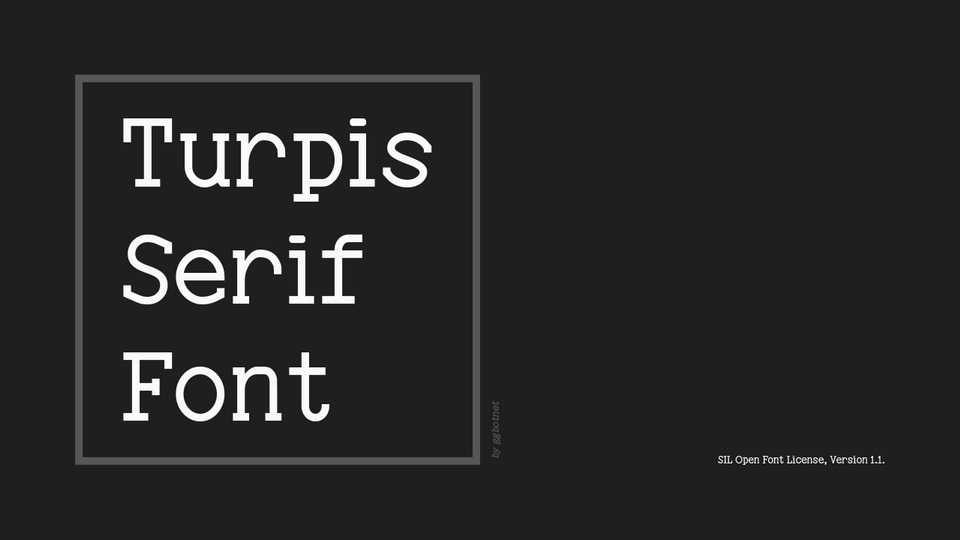
Download Turpis font, a slab serif typeface meant for versatility and differentiation. Turpis font can be used both as a title case and as a text font.